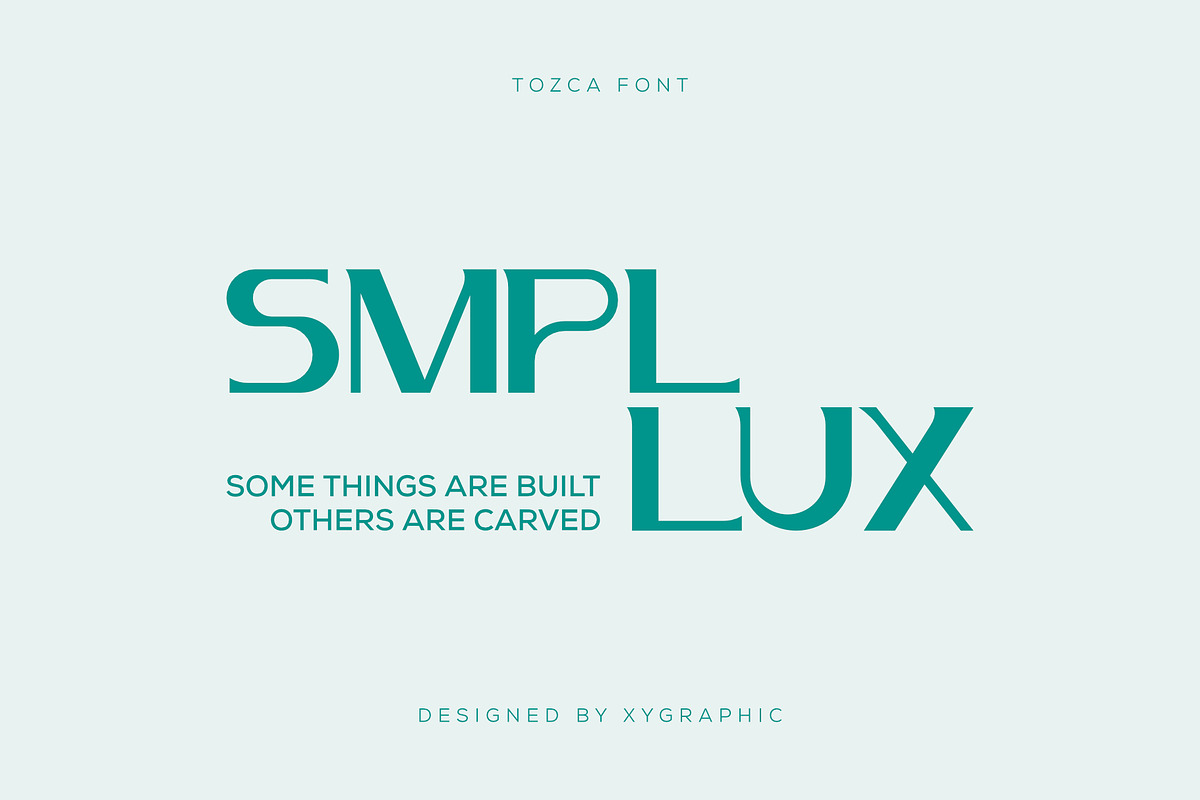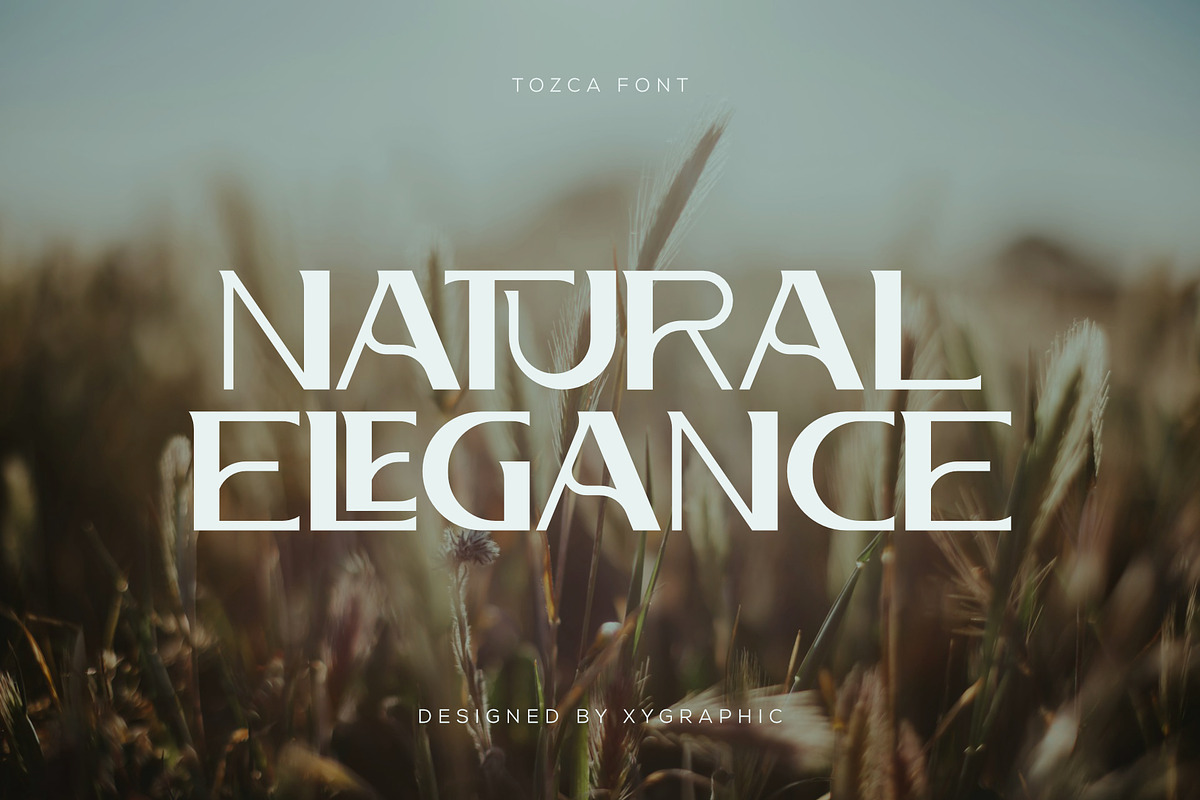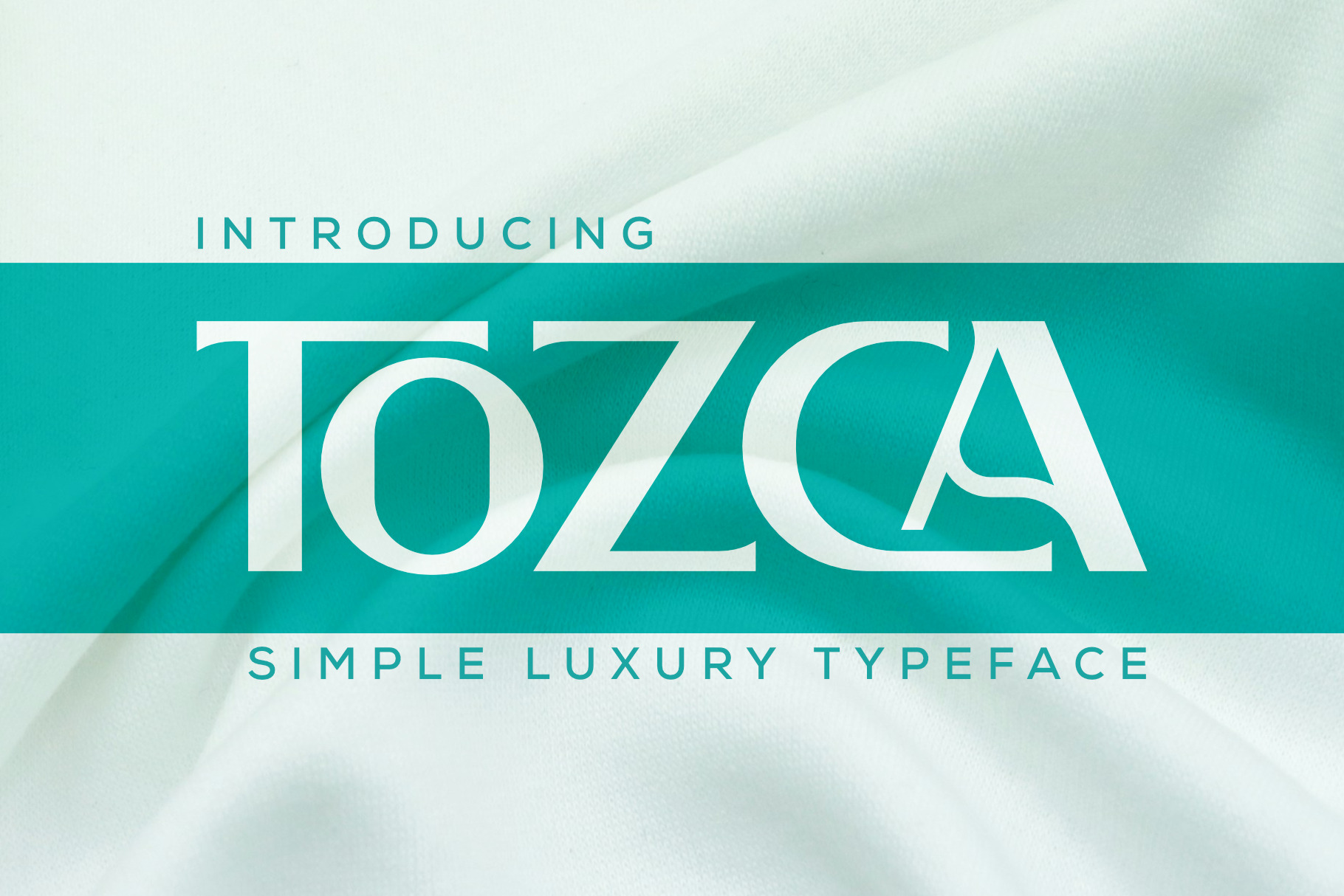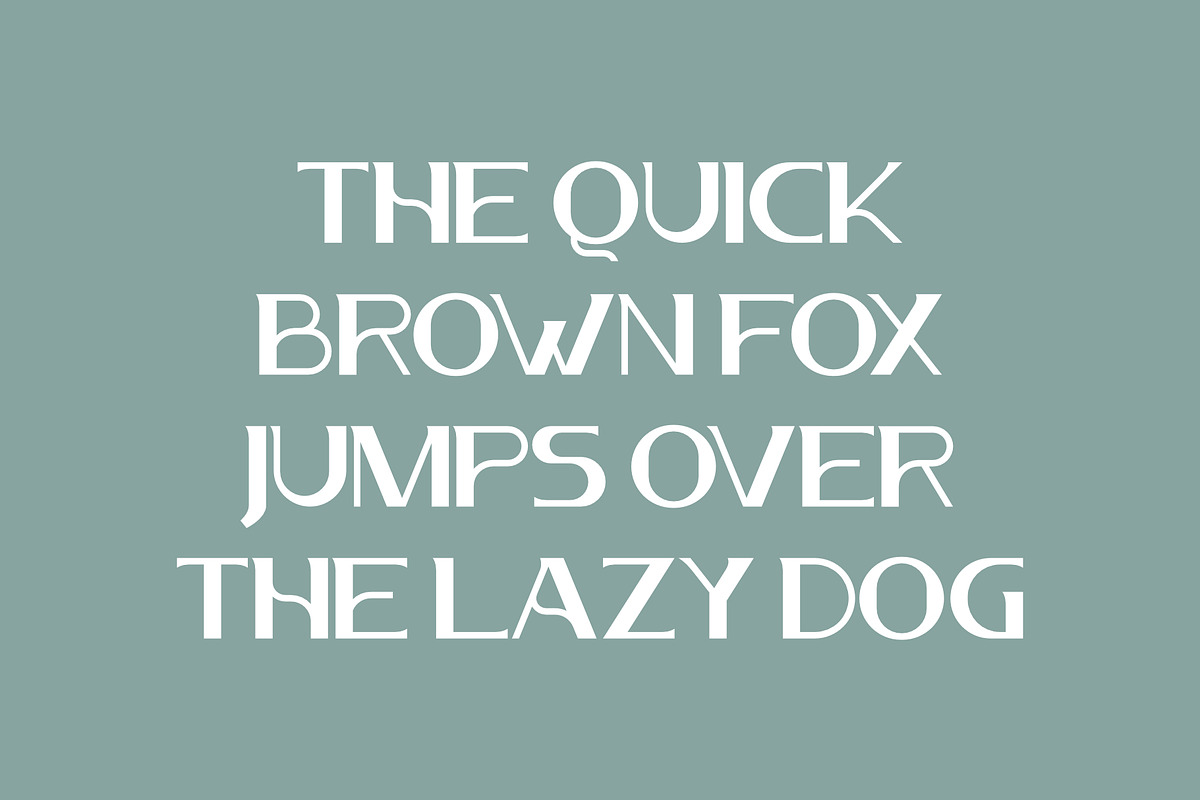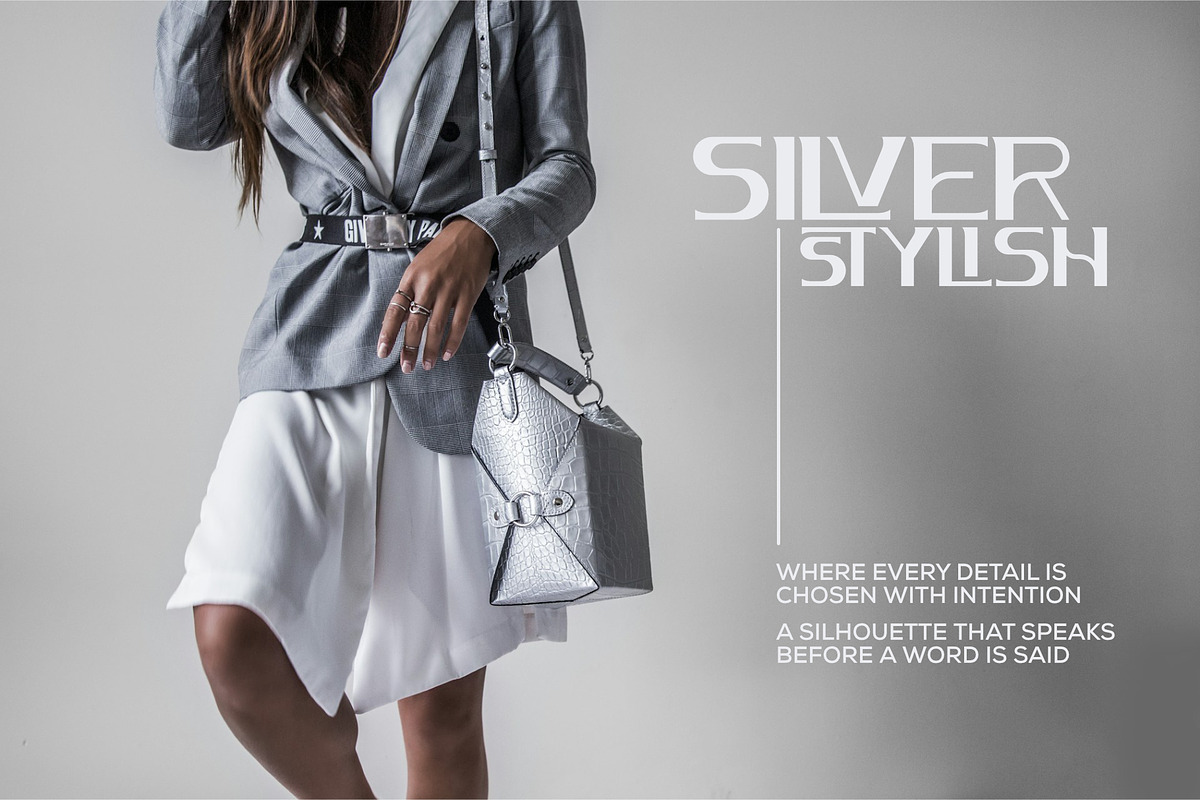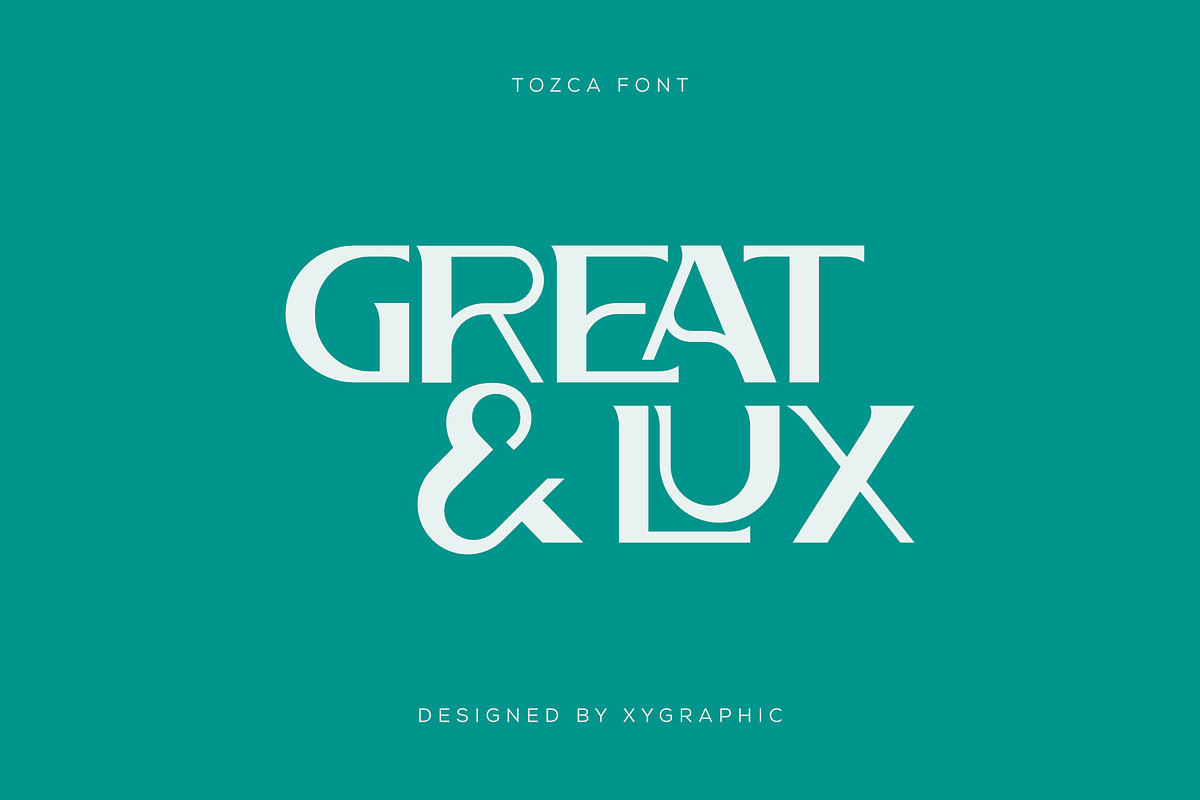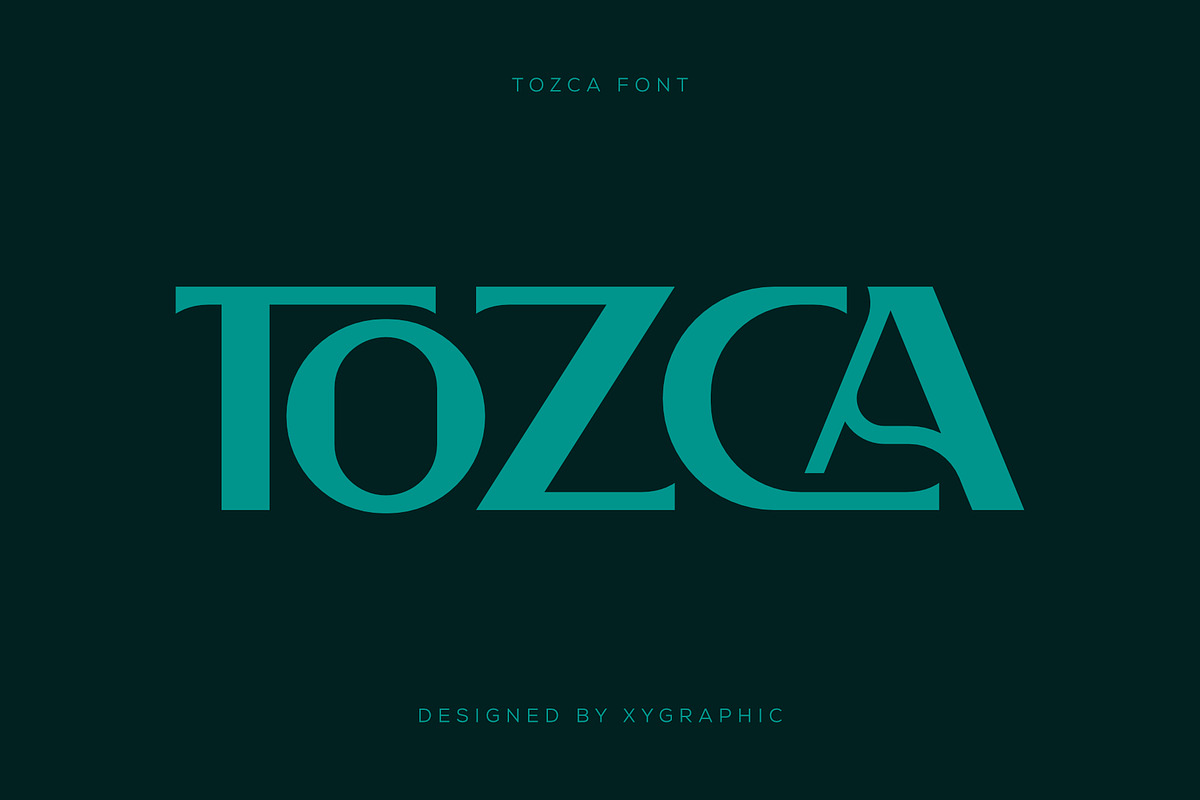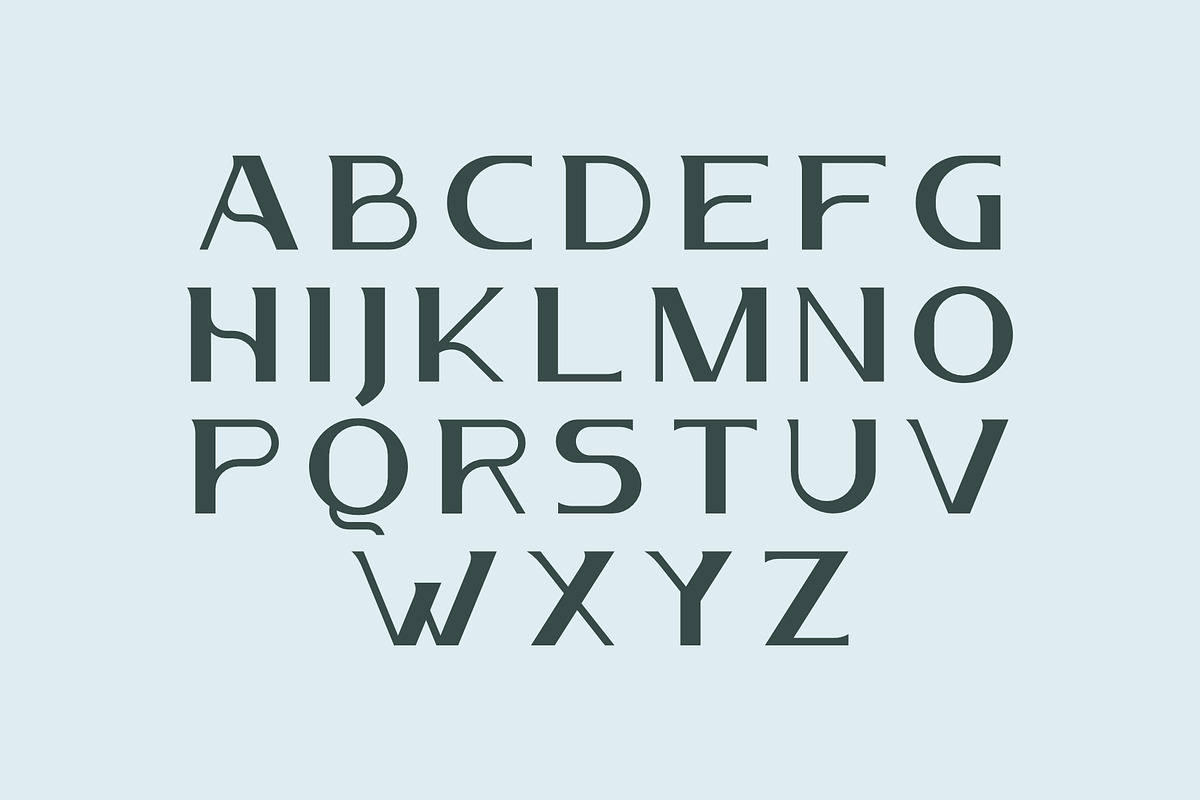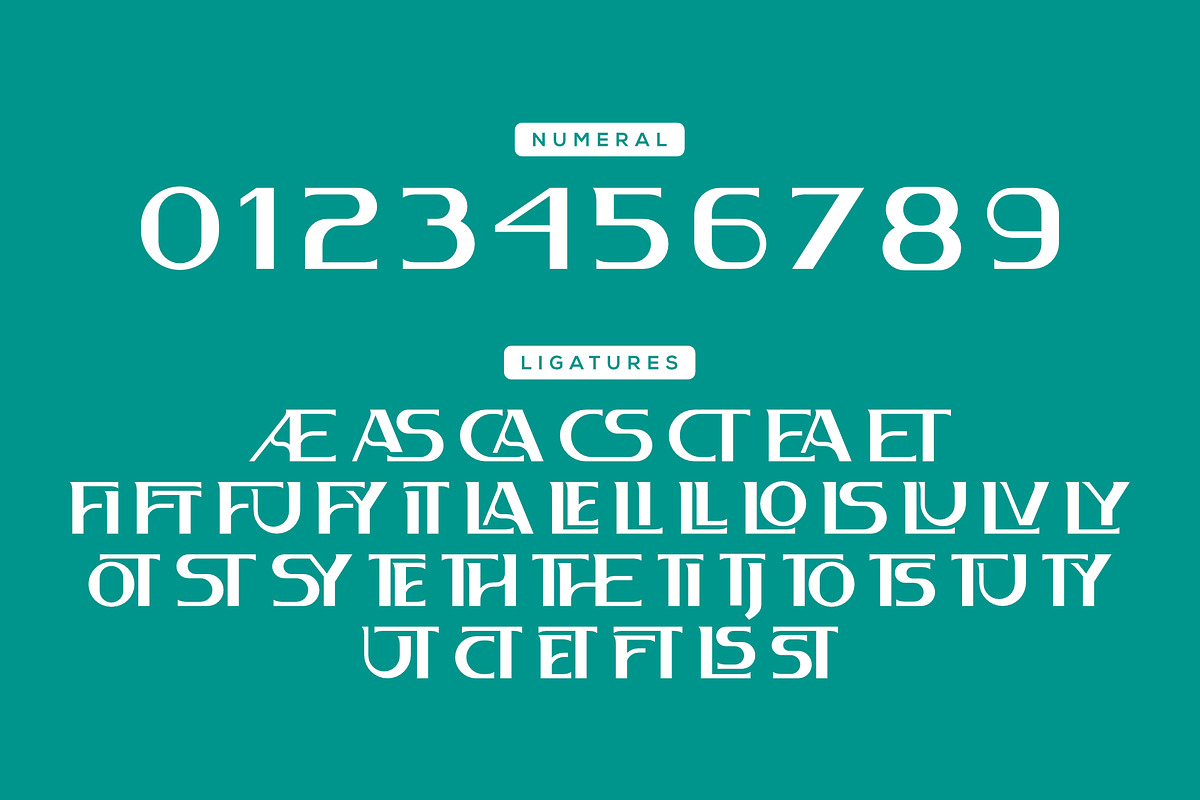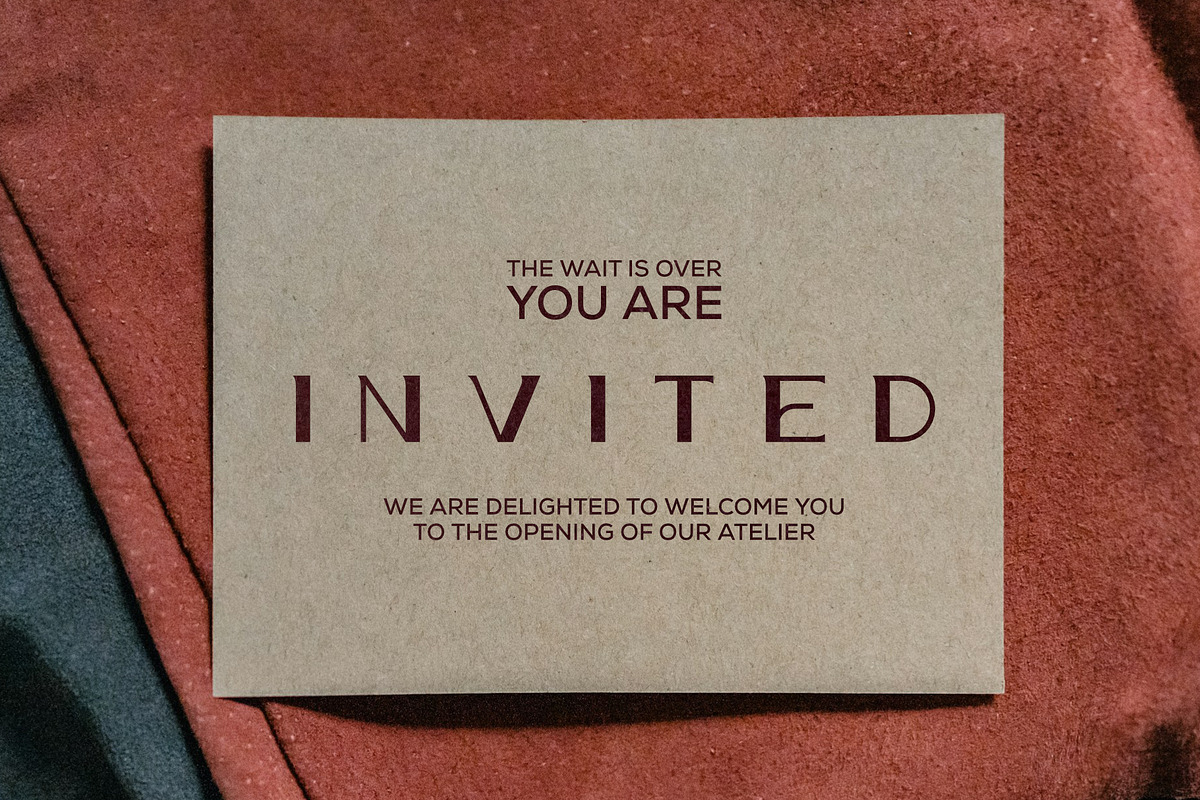
Tozca - Simple Luxury Typeface
Some typefaces are made to fill space. Tozca is made to own it. Built for brands that speak without saying too much, Tozca carries the quiet confidence of high-end design — refined, intentional, and impossible to ignore.
Every curve is measured, every stroke deliberate. And with an extensive set of discretionary ligatures (dlig), Tozca rewards attention to detail — the more you look, the more you find.
At home on invitation cards, brand identities, magazine covers, and anywhere the design needs to feel elevated without trying too hard.